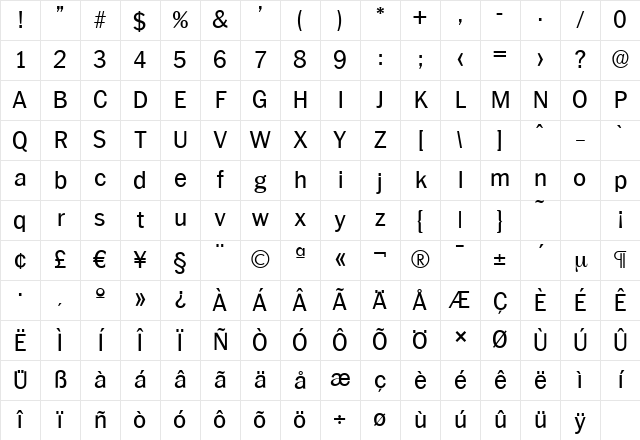
PlymouthSerial Regular
Design Context for PlymouthSerial
PlymouthSerial is a composed and adaptable typeface that performs quietly and consistently across a wide range of design contexts.